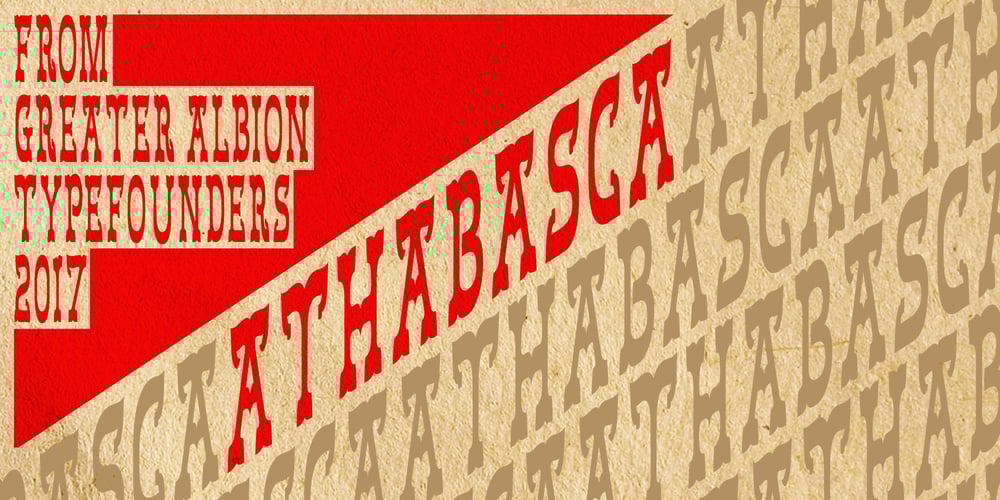
Athabasca Font Family was designed by Paul James Lloyd and published by Greater Albion Typefounders. Athabasca contains 1 styles and family package options. Athabasca is “Wild West” Tuscan on steroids. Remember those stylised tall and narrow typefaces that used to appear in Wild West comics, Western movies, “Wanted” posters and so forth? Well, here’s a new, 2017 released take on the idea. Have fun!